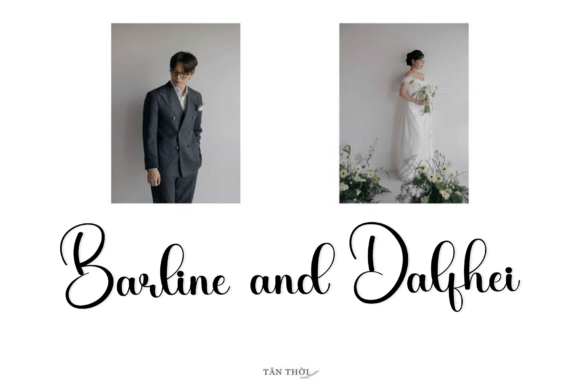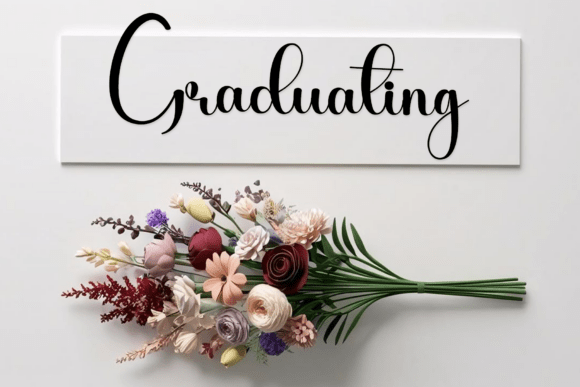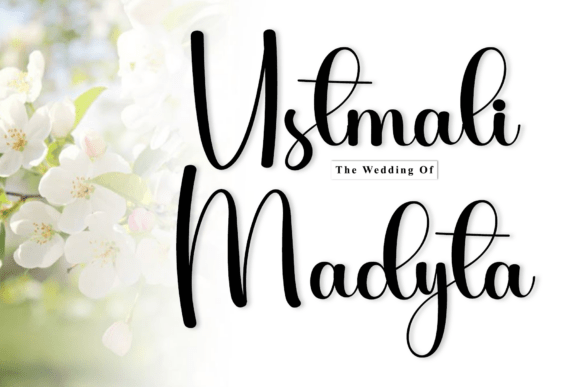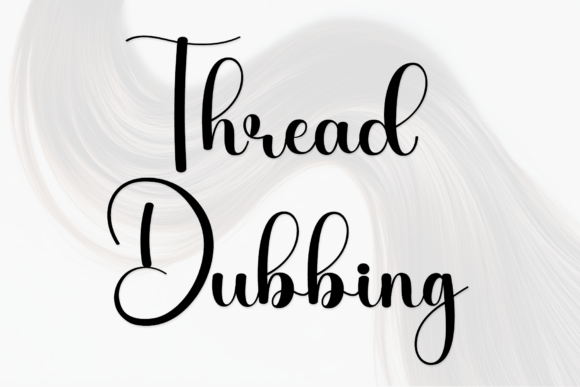
Introducing Hairbrush Font: A Timeless Handwritten Delight
Are you on the hunt for a font that adds a touch of elegance and whimsy to your designs? Look no further than Hairbrush Font, a lovely and timeless handwritten font that’s perfect for creating eye-catching logos, branding, and quotes. With its unique and beautiful touch, Hairbrush Font is sure to make your design come alive!
What Makes Hairbrush Font So Special?
Hairbrush Font is a one-of-a-kind handwritten font that’s been carefully crafted to bring a touch of sophistication and charm to your designs. Every letter has been meticulously designed to have a unique and beautiful touch, making it perfect for adding a personal touch to your work. Whether you’re a designer, crafter, or DIY enthusiast, Hairbrush Font is the perfect choice for anyone looking to add a bit of elegance and whimsy to their designs.
The Perfect Choice for Logos, Branding, and Quotes
Hairbrush Font is the perfect choice for creating eye-catching logos, branding, and quotes. Its elegant and cursive design makes it perfect for creating sophisticated and stylish text-based designs. Whether you’re looking to create a logo for your business, a quote for social media, or a branding campaign for your product, Hairbrush Font is the perfect choice. Its unique and beautiful touch will add a touch of elegance and whimsy to your design, making it stand out from the crowd.
Why Designers and Crafters Love Hairbrush Font
Designers and crafters love Hairbrush Font for its versatility and elegance. Its handwritten design makes it perfect for creating a wide range of designs, from elegant and sophisticated to playful and whimsical. Whether you’re creating a logo, a quote, or a branding campaign, Hairbrush Font is the perfect choice. Its unique and beautiful touch will add a touch of personality to your design, making it stand out from the crowd.
The Benefits of Using Hairbrush Font
There are many benefits to using Hairbrush Font in your designs. Here are a few:
- Elegance and sophistication: Hairbrush Font adds a touch of elegance and sophistication to your designs, making them perfect for high-end branding and marketing campaigns.
- Uniqueness and personality: Hairbrush Font has a unique and beautiful touch that will add a touch of personality to your designs, making them stand out from the crowd.
- Versatility: Hairbrush Font is a versatile font that can be used in a wide range of designs, from elegant and sophisticated to playful and whimsical.
In conclusion, Hairbrush Font is a lovely and timeless handwritten font that’s perfect for creating eye-catching logos, branding, and quotes. With its unique and beautiful touch, Hairbrush Font is sure to make your design come alive! Whether you’re a designer, crafter, or DIY enthusiast, Hairbrush Font is the perfect choice for anyone looking to add a bit of elegance and whimsy to their designs. So why wait? Download Hairbrush Font today and start creating stunning designs that will leave a lasting impression!